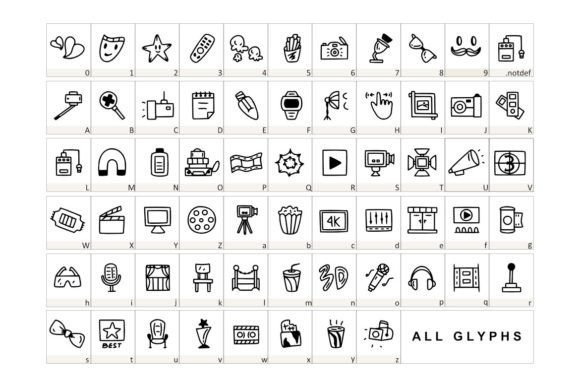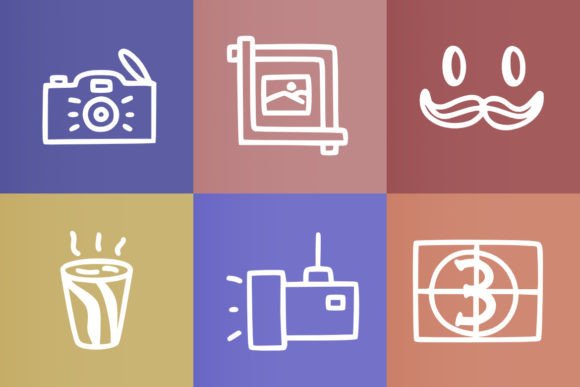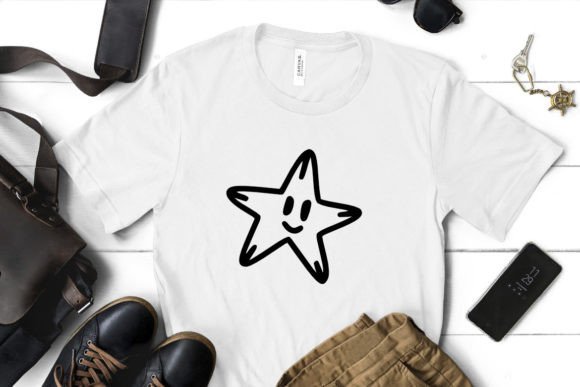
Cinema Font: The Perfect Dingbats Font for Your Creative Projects
Are you a designer, crafter, or DIY enthusiast looking for a unique and versatile font to elevate your creative projects? Look no further than Cinema Font, a cute and useful dingbats font that’s perfect for a wide range of applications. In this article, we’ll explore the features and benefits of Cinema Font, and show you how it can be used to create stunning stickers, posters, t-shirts, cards, apparel graphics, and more.
What is Cinema Font?
Cinema Font is a dingbats font that features a collection of charming and whimsical icons, illustrations, and graphics. The font is designed to be highly versatile and can be used for a variety of creative projects, from paper crafting and scrapbooking to graphic design and digital art. With its unique and playful style, Cinema Font is sure to add a touch of personality and flair to any project.
Key Features of Cinema Font
- Cute and playful design: Cinema Font features a range of adorable icons, illustrations, and graphics that are sure to delight.
- Highly versatile: The font can be used for a wide range of creative projects, from stickers and posters to t-shirts and apparel graphics.
- Easy to use: Cinema Font is a dingbats font, making it easy to use and incorporate into your designs.
- Scalable: The font is highly scalable, allowing you to use it for both small and large projects.
Uses for Cinema Font
Cinema Font is perfect for a wide range of creative projects, including:
- Stickers: Use Cinema Font to create custom stickers for laptops, water bottles, or any other surface.
- Posters: Create eye-catching posters for events, promotions, or advertising campaigns.
- T-shirts and apparel graphics: Add a touch of personality to t-shirts, hoodies, and other apparel with Cinema Font.
- Cards and invitations: Use Cinema Font to create custom cards and invitations for special occasions.
- Digital art: Incorporate Cinema Font into your digital art projects, such as illustrations, graphics, and more.
Tips for Using Cinema Font
Here are a few tips for getting the most out of Cinema Font:
- Experiment with different colors and textures: Cinema Font looks great in a variety of colors and textures, so don’t be afraid to get creative.
- Combine with other fonts: Pair Cinema Font with other fonts to create unique and interesting typography.
- Use for decorative elements: Use Cinema Font to add decorative elements to your designs, such as borders, frames, and more.
Cinema Font is a versatile and charming dingbats font that’s perfect for a wide range of creative projects. With its cute and playful design, highly scalable and easy-to-use features, and endless possibilities for customization, Cinema Font is sure to become a favorite among designers, crafters, and DIY enthusiasts. So why wait? Download Cinema Font today and start creating stunning stickers, posters, t-shirts, cards, apparel graphics, and more!